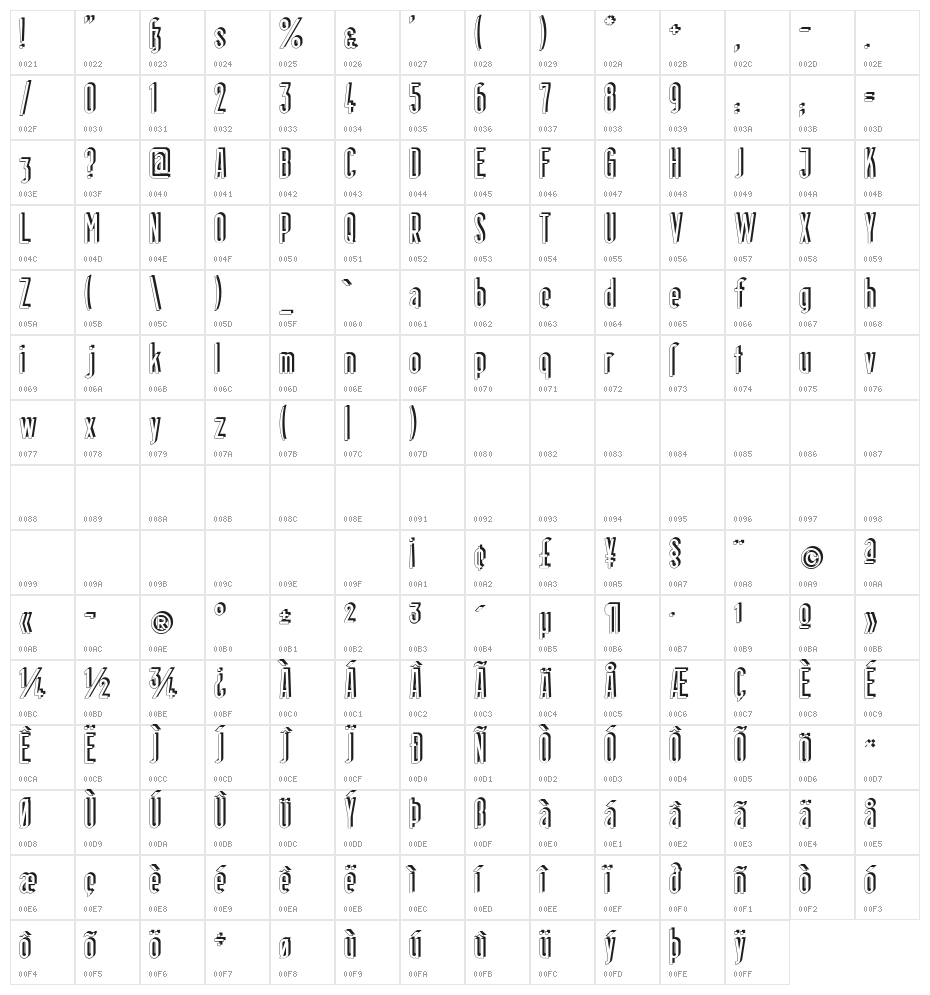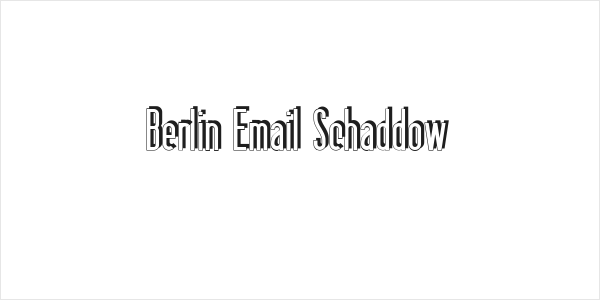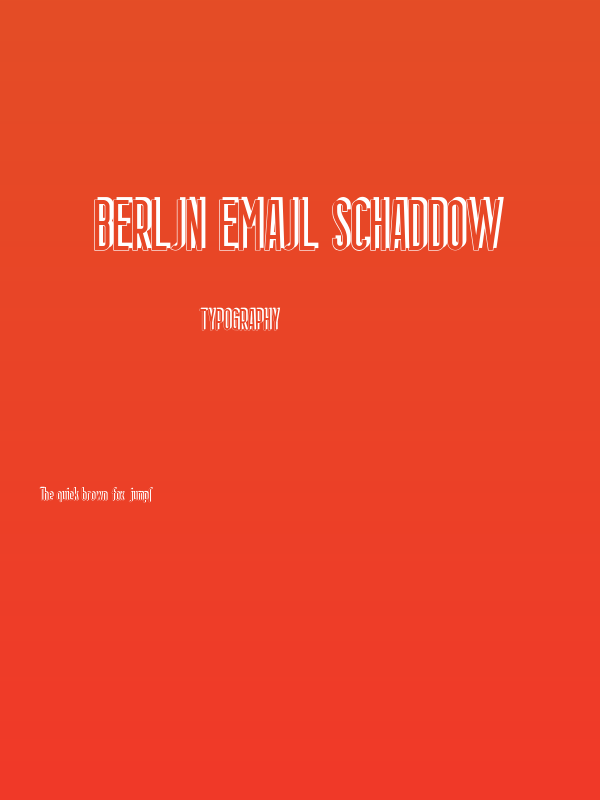
Berlin Email Schaddow Font
Berlin Email Schaddow Description
This font features a bold and striking design with a shadow effect that gives it a three-dimensional appearance. The uppercase letters are tall and narrow, creating a sense of height and elegance. The lowercase letters maintain a consistent style, complementing the uppercase with a slightly more rounded form. Numbers and special characters are designed to match the overall aesthetic, ensuring uniformity across all text. The shadow effect adds depth, making the font ideal for eye-catching displays and headings. Its clean lines and modern style make it versatile for various design projects.
| Proposed Projects | Ideal for posters, headlines, branding, and any design requiring a bold statement. |